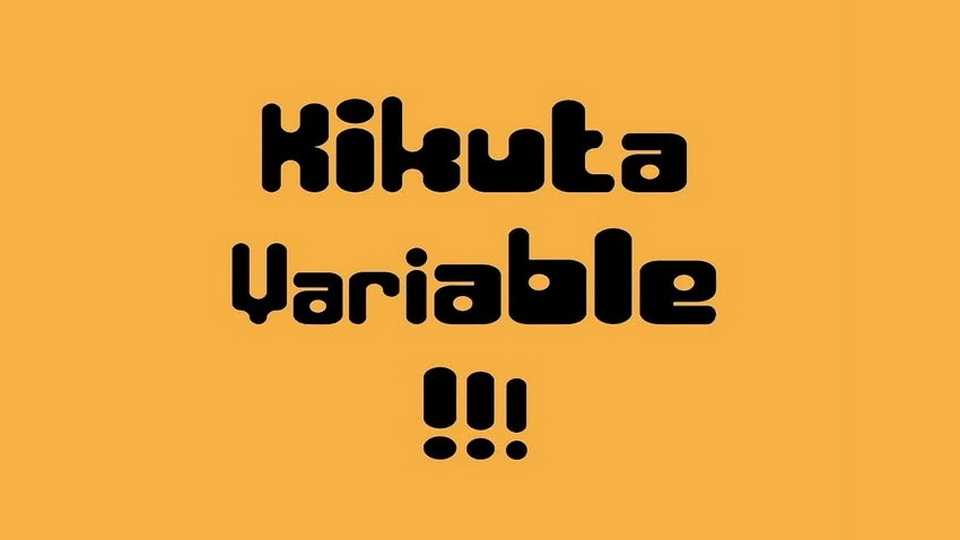
Download Kikuta font, a modular sans serif blending the precision of monospaced forms with the softness of geometric design. Kikuta explores the boundary between mechanical structure and human touch.
Designer: Erwan Le Rétif